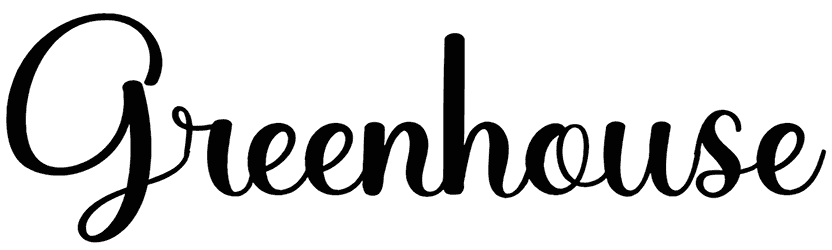
Greenhouse Font
Greenhouse is a creative handwritten font that makes the most of rhythmic swashes and twists instead of its regular counterparts. This script font may make the content a bit challenging to read at first, but you can’t deny how it makes you want to look at it again.
Because of this, bold and outstanding artists will have a great time finding ways to make the most of this invitation font in wedding card designs, stationery packaging, and album covers.
Greenhouse is a lovely and round-lettered handwritten font. It is the best choice for creating eye catching logos, branding and quotes. Every letter has a unique and beautiful touch, which will make your design come alive!